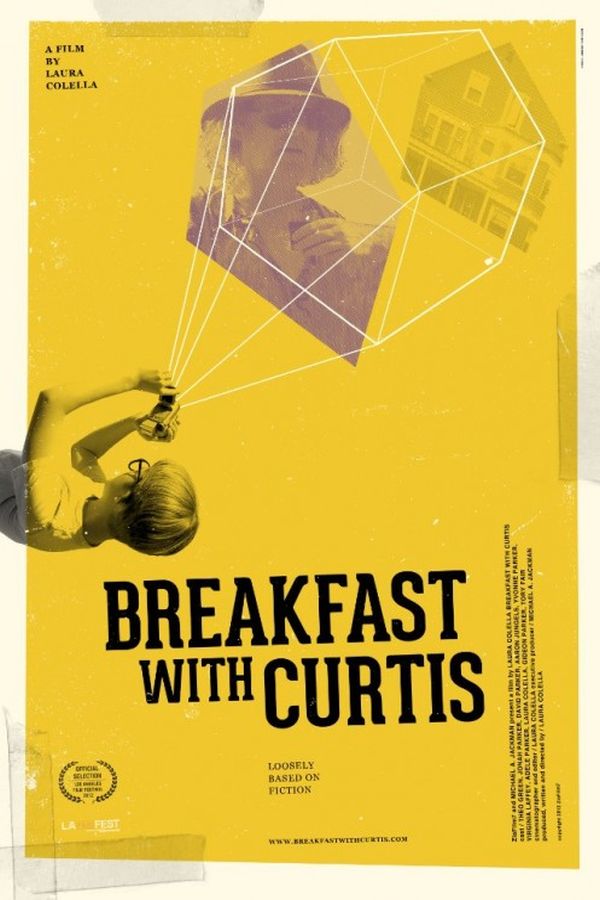
Breakfast with Curtis Font
DramaBreakfast with Curtis is a 2012 indie film about a young boy who befriends his eccentric neighbor and begins to learn about life and love through the man's wild and unpredictable antics.
The movie title font in the poster is likely Geared by Losttype, a slab serif with an industrial look that comes in four weights: Thin, Regular, Bold, and Extrabold. You can learn more about the font here.